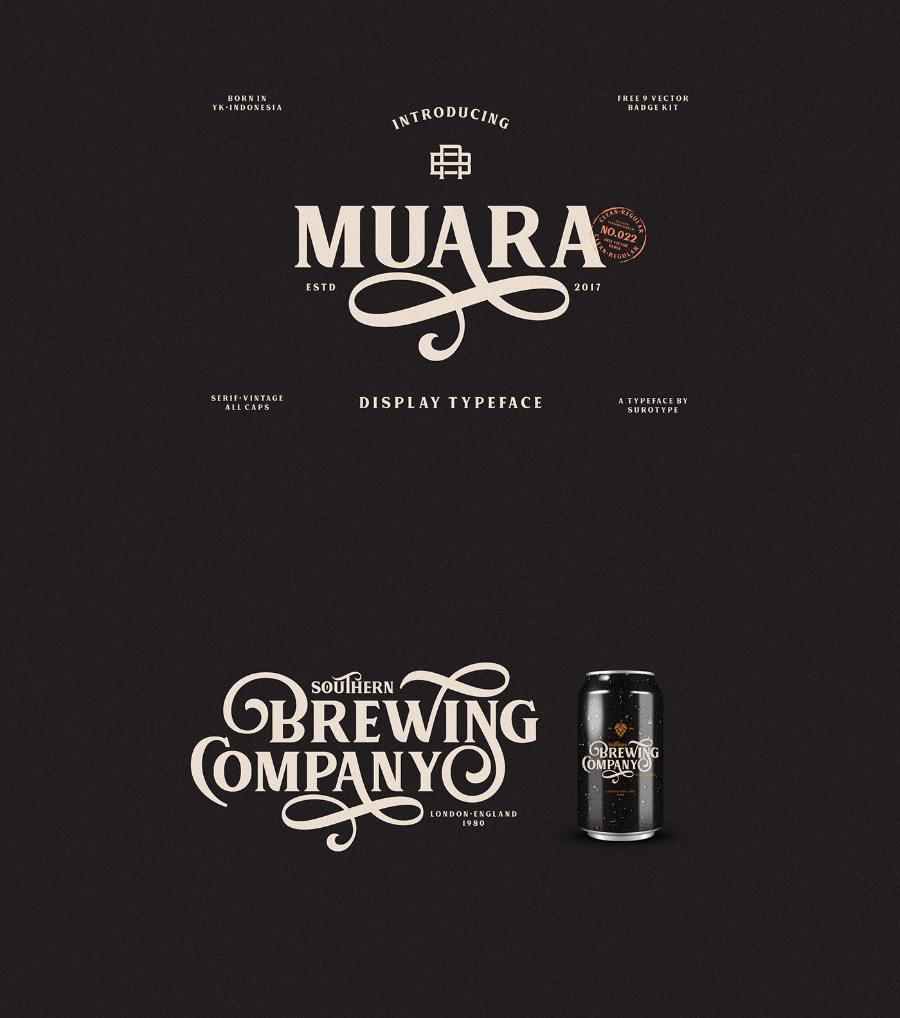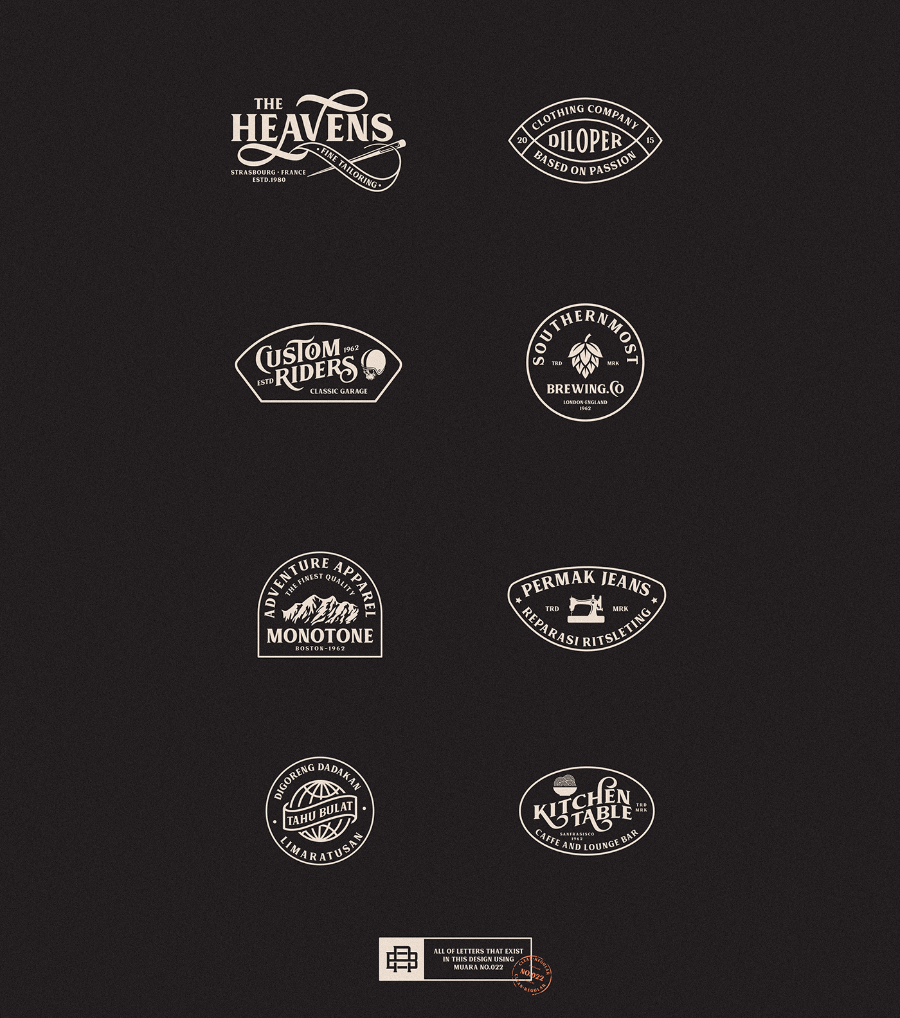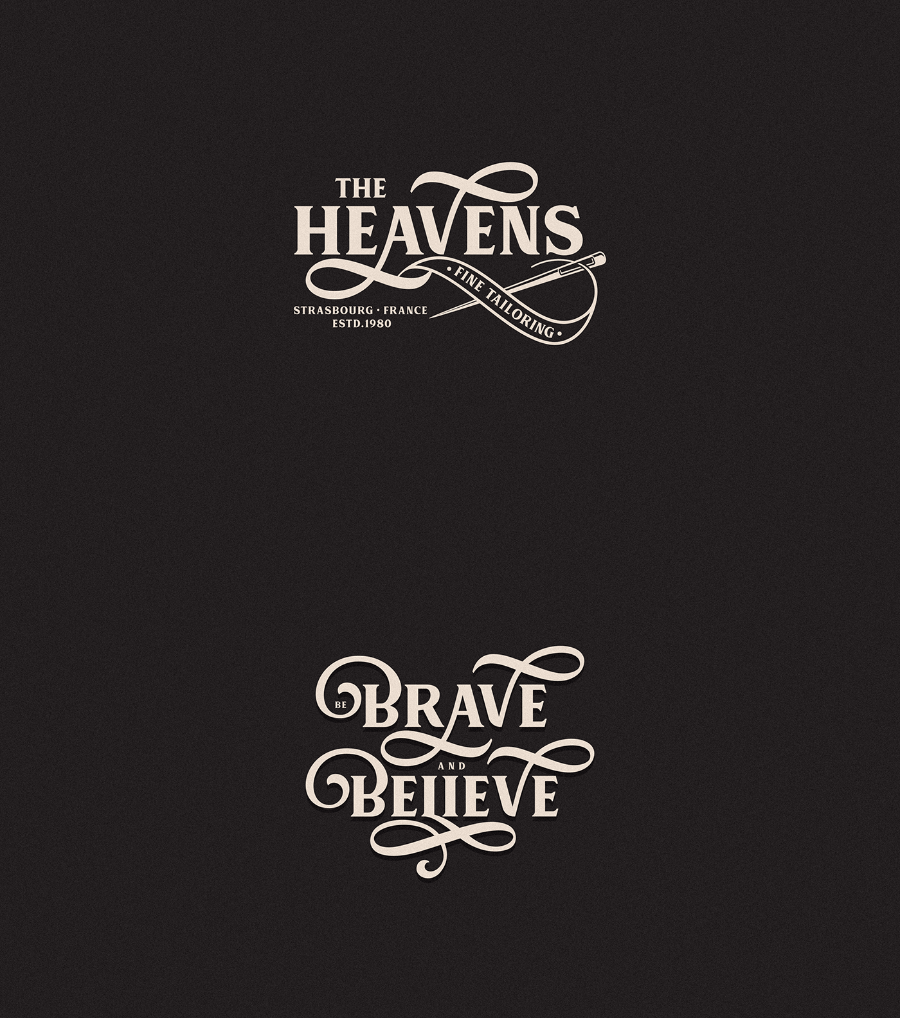
Muara Free Vintage Typeface
Muara Free Vintage Typeface is a display typeface with classic taste. It is very suitable for many kind of design works, such as books and magazines. It will also work great for packaging, branding, signage and more other creative project. So, download now and give it a try!